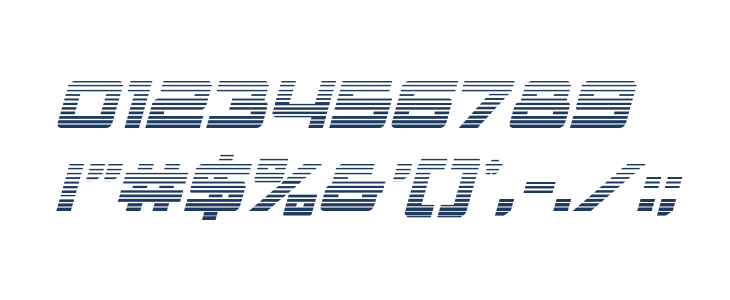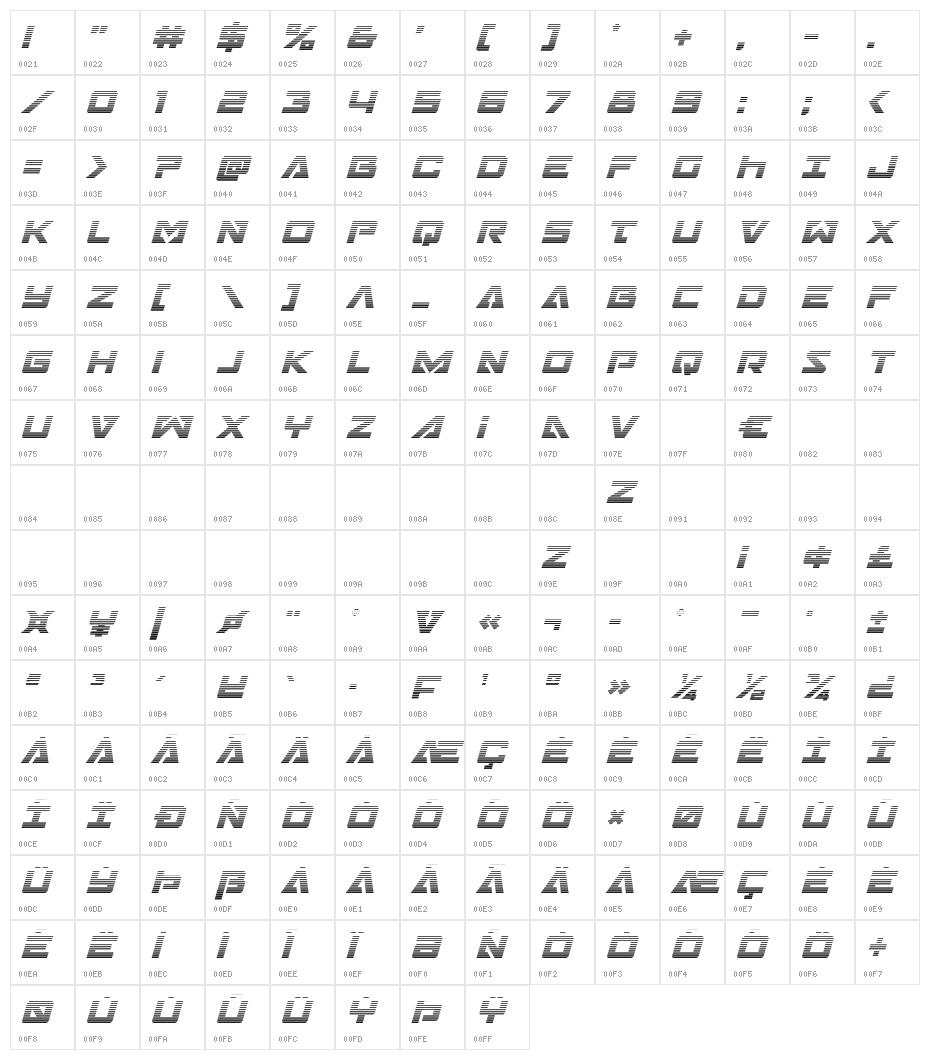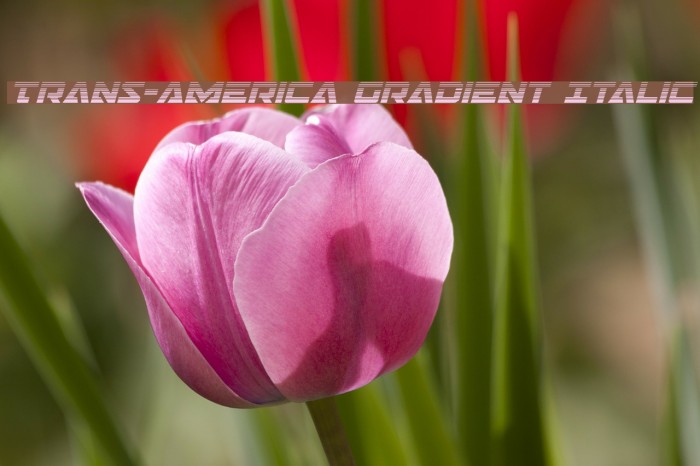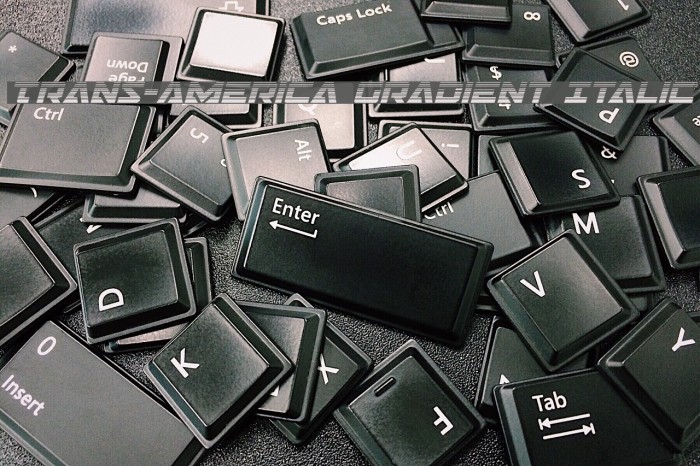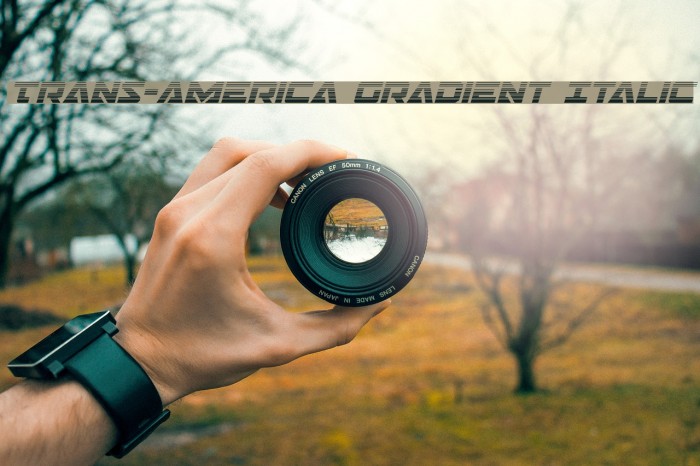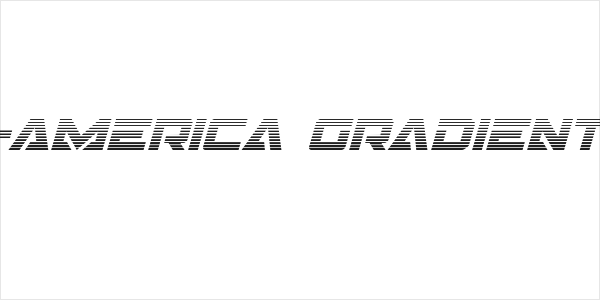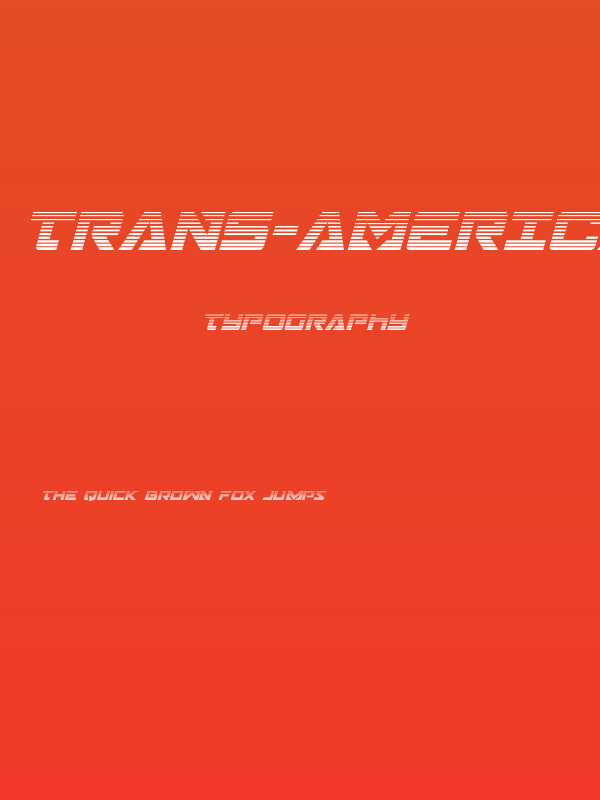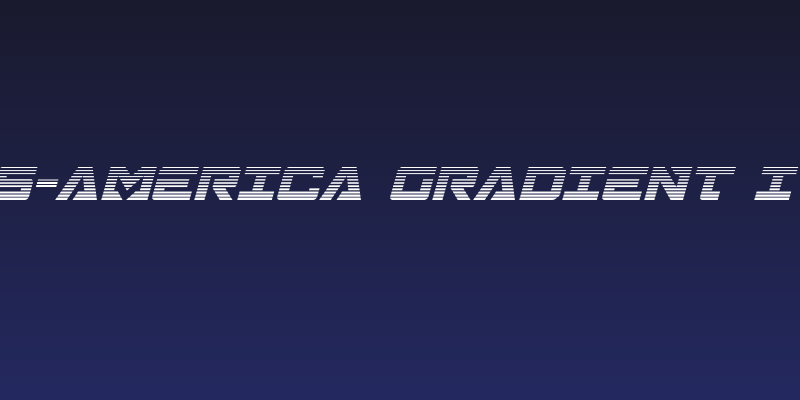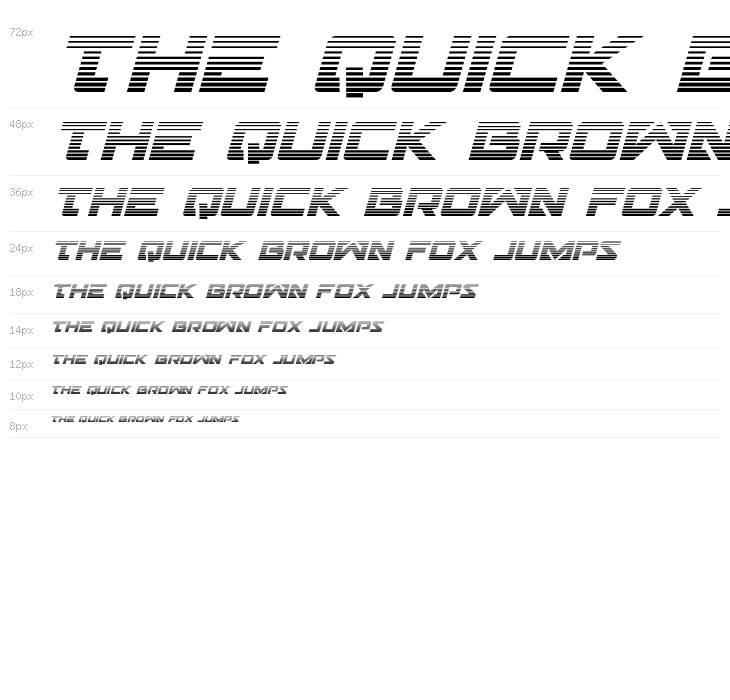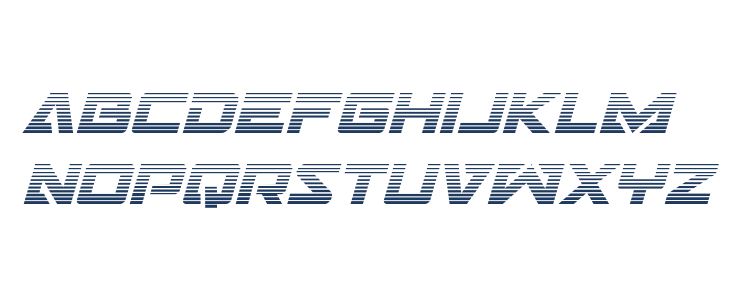
Trans-America Gradient Italic Font
Trans-America Gradient Italic Description
This font features a dynamic, italicized style with a distinct gradient effect created by horizontal lines. The characters are bold and have a futuristic, aerodynamic appearance, reminiscent of speed and movement. The uppercase and lowercase letters maintain a consistent slant, enhancing the sense of motion. The numbers and special characters follow the same design principles, ensuring uniformity across all glyphs. This font is ideal for projects that require a modern and energetic look, such as sports branding, automotive designs, or technology-related themes.